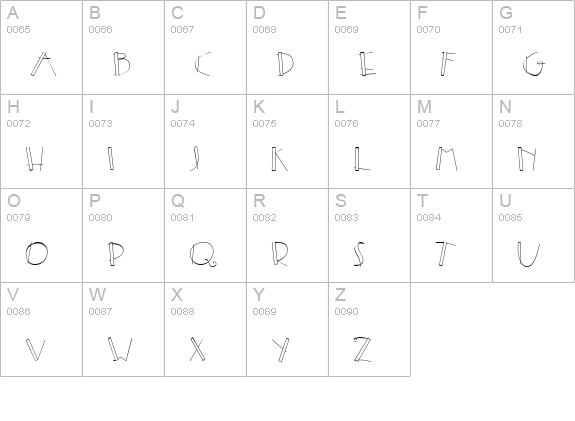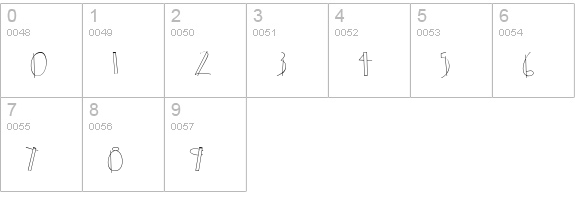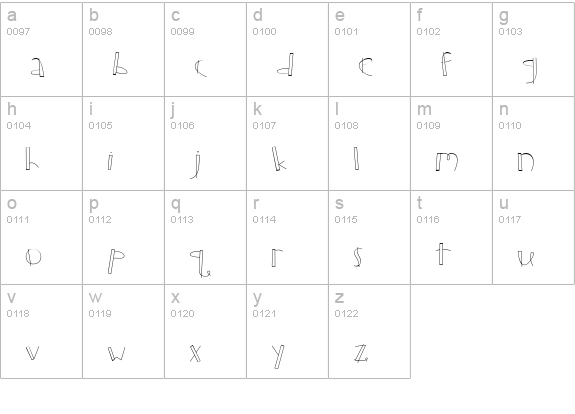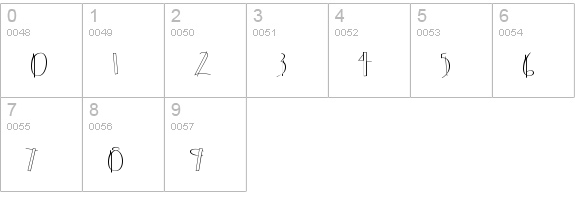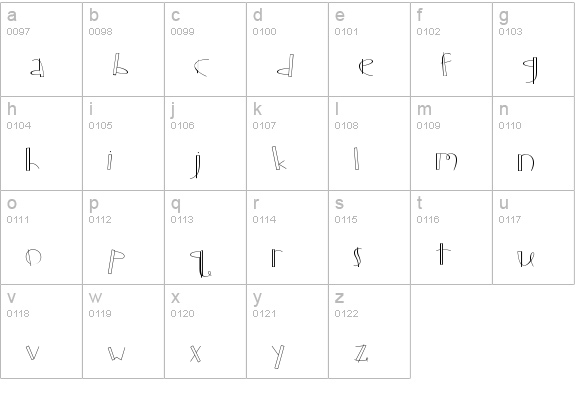
CK Breeze Font Details
Introducing CK Breeze font, a modern and stylish typeface that exudes elegance and sophistication. This unique font boasts clean lines and smooth curves, making it perfect for a wide range of design projects. CK Breeze is a versatile font that can be used for anything from branding to social media graphics to invitations. The best part? CK Breeze is available for free download at FontsMarket.com. This means you can easily add this stunning font to your collection without breaking the bank. Don't miss out on the opportunity to elevate your designs with the beauty and grace of CK Breeze font. Download it today and let your creativity soar!